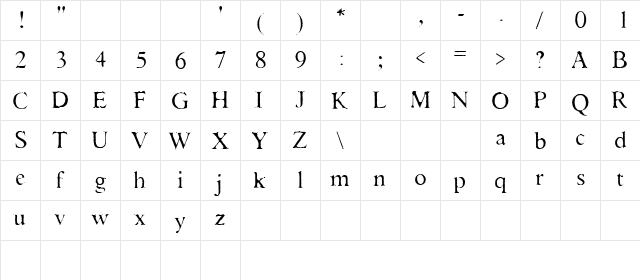
Asha Regular Font Preview
Asha Regular
Design Context for Asha Typeface
Asha is a composed and adaptable typeface that performs quietly and consistently across a wide range of design contexts.